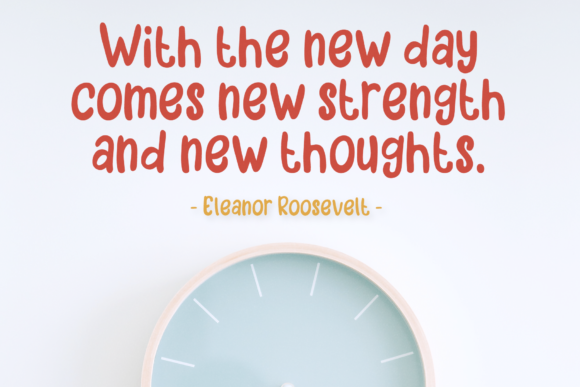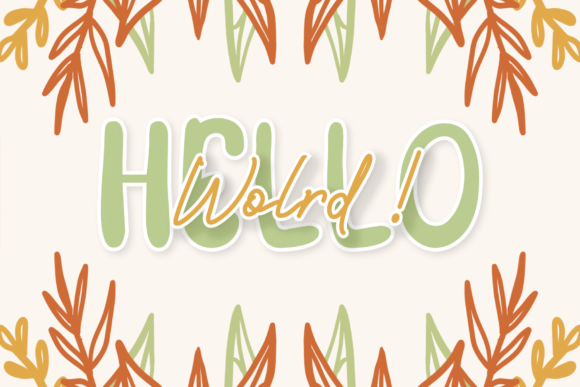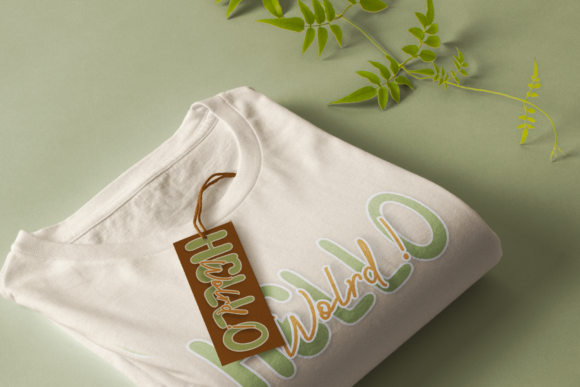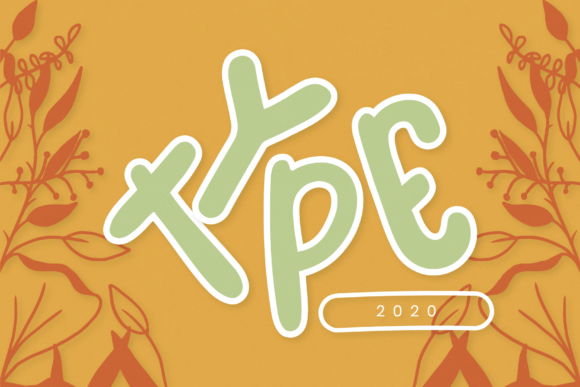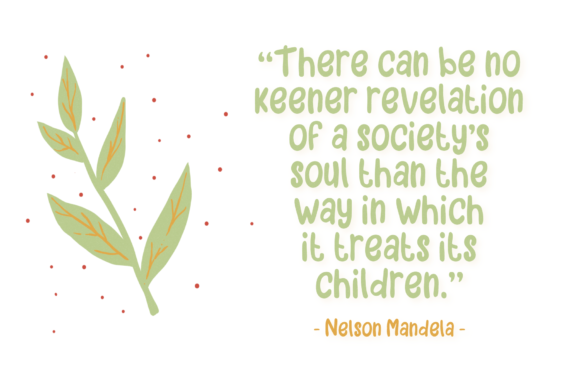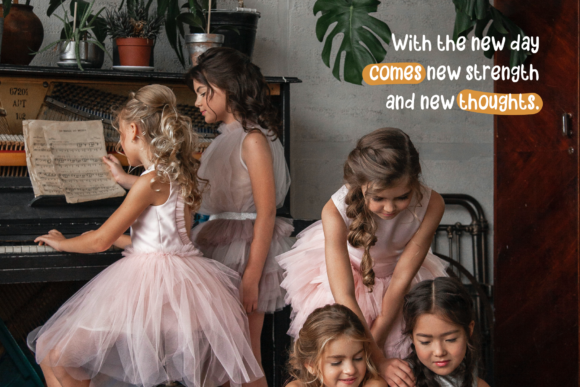
Introduction to Child Trends Font
Have you ever found yourself in a creative frenzy, scrolling through design inspiration boards, and suddenly, an idea strikes? The perfect font pops into your mind, and you can’t wait to bring your vision to life. For many designers, this moment is all too familiar. But what if you could take that creative spark and turn it into a stunning visual masterpiece? Enter Child Trends Font, a whimsical display font that’s about to become your new go-to design resource.
Whether you’re a seasoned pro or a DIY enthusiast, Child Trends Font is the perfect addition to your design arsenal. With its high-quality design and transparent background, this font is a versatile tool that can elevate any creative project. And the best part? It’s available for free download, making it an accessible resource for designers of all levels.
Key Features of Child Trends Font
- High-quality design: Child Trends Font is a premium font designed for creative projects, offering a unique and visually appealing look.
- Transparent background: The font’s transparent background allows for easy layering and customization, making it perfect for creative projects that require intricate design elements.
- Size and resolution: The font is available in a range of sizes, from 12 to 72 points, and is optimized for high-resolution displays, making it ideal for use in various creative projects.
- Unique characteristics: Child Trends Font features a distinctive and playful style, making it perfect for use in children’s educational materials, creative projects, and design resources.
- Design resource: This font is an excellent design resource for anyone working on creative projects that require a high-quality, visually appealing font with a transparent background.
Honest Review: Child Trends Font
I recently stumbled upon the Child Trends Font and I’m excited to share my honest review with you. As a designer, I’m always on the lookout for high-quality design resources that can elevate my creative projects. This font definitely fits the bill.
- ✨ High-quality design that’s perfect for any creative project
- ✨ Can be used with a transparent background, giving me endless design possibilities
- ⚠️ Limited font sizes available, which might be a concern for larger-scale projects
- ⚠️ Not as versatile as some other fonts on the market, which can make it difficult to use in certain design scenarios
Overall, I’m impressed with the Child Trends Font and would definitely recommend it to fellow designers. While it may have some limitations, its high quality and versatility make it a valuable design resource. Whether you’re working on a small design project or a large-scale creative endeavor, this font is definitely worth checking out.
Child Trends Font
The Child Trends Font is a high-quality design resource that offers a transparent background, making it perfect for creative projects. This free download is available for use in various design applications.
Tips for Getting the Most Out of Child Trends Font
Here are some tips to help you get the most out of the Child Trends Font:
Experiment with different font sizes and colors to create a unique design.
Use the font in combination with other design elements to create a cohesive look.
Take advantage of the transparent background to create a visually appealing design.
The Child Trends Font is perfect for:
Creating posters and flyers for events or campaigns.
Designing social media graphics and ads.
Developing branding materials for businesses or organizations.